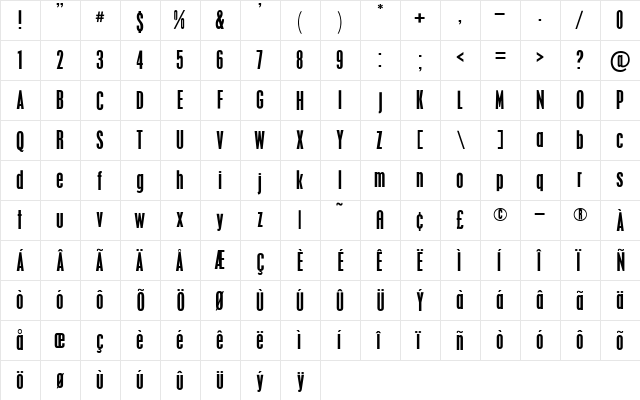
AFCamberwell Regular
Design Context for AFCamberwell Typeface
AFCamberwell offers clean, dependable letterforms without strong stylistic allegiance, making it a practical choice for designers who need flexibility.